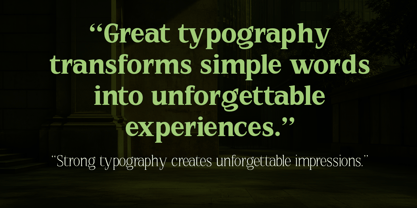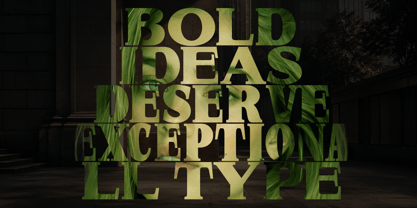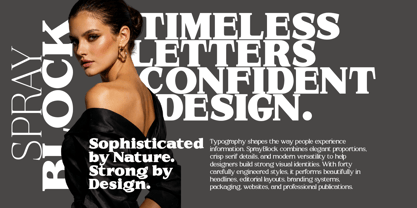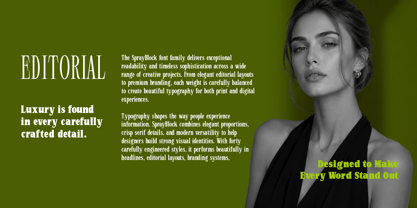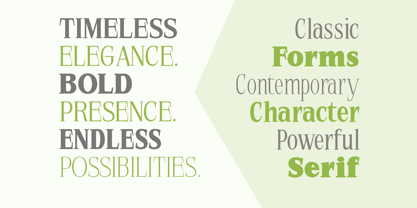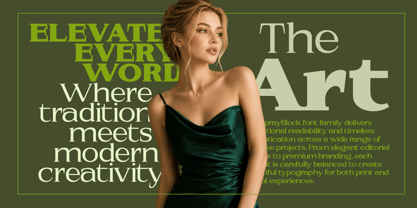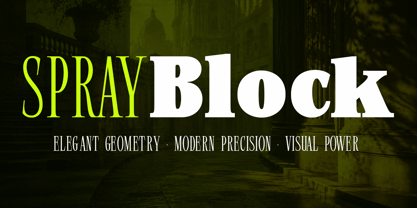
SprayBlock
SprayBlock – Serif Font Family
SprayBlock is a powerful and versatile serif typeface family designed to make a strong visual impact while maintaining excellent readability. With 40 carefully crafted styles, SprayBlock combines timeless serif elegance with bold structural details, creating a perfect balance between classic sophistication and contemporary design. Its refined proportions, sharp serifs, and confident character shapes make it suitable for a wide range of creative and professional applications.
From delicate lightweight styles to commanding heavy weights, SprayBlock offers outstanding flexibility for designers seeking consistency across branding, editorial layouts, advertising campaigns, packaging, websites, and corporate communications. Every style has been meticulously developed to ensure harmonious spacing, smooth readability, and a polished appearance across both print and digital environments.
Whether you're creating luxury branding, magazine headlines, book covers, fashion campaigns, business presentations, or modern marketing materials, SprayBlock provides the typographic range needed to bring your vision to life. The family’s extensive selection of weights and matching italics allows for sophisticated hierarchy and seamless visual storytelling.
Features
• 40 Font Family Styles
• Weights from Thin to Black
• Elegant Serif Construction
• Professional Kerning & Spacing
• Multilingual Support
• Numerals & Punctuation
• OpenType Features
• Suitable for Print & Digital Use
Perfect For
• Luxury Branding
• Editorial Design
• Publishing
• Fashion & Beauty Projects
• Logos & Visual Identity
• Advertising Campaigns
• Packaging Design
• Website Headers
• Corporate Communications
• Social Media Graphics